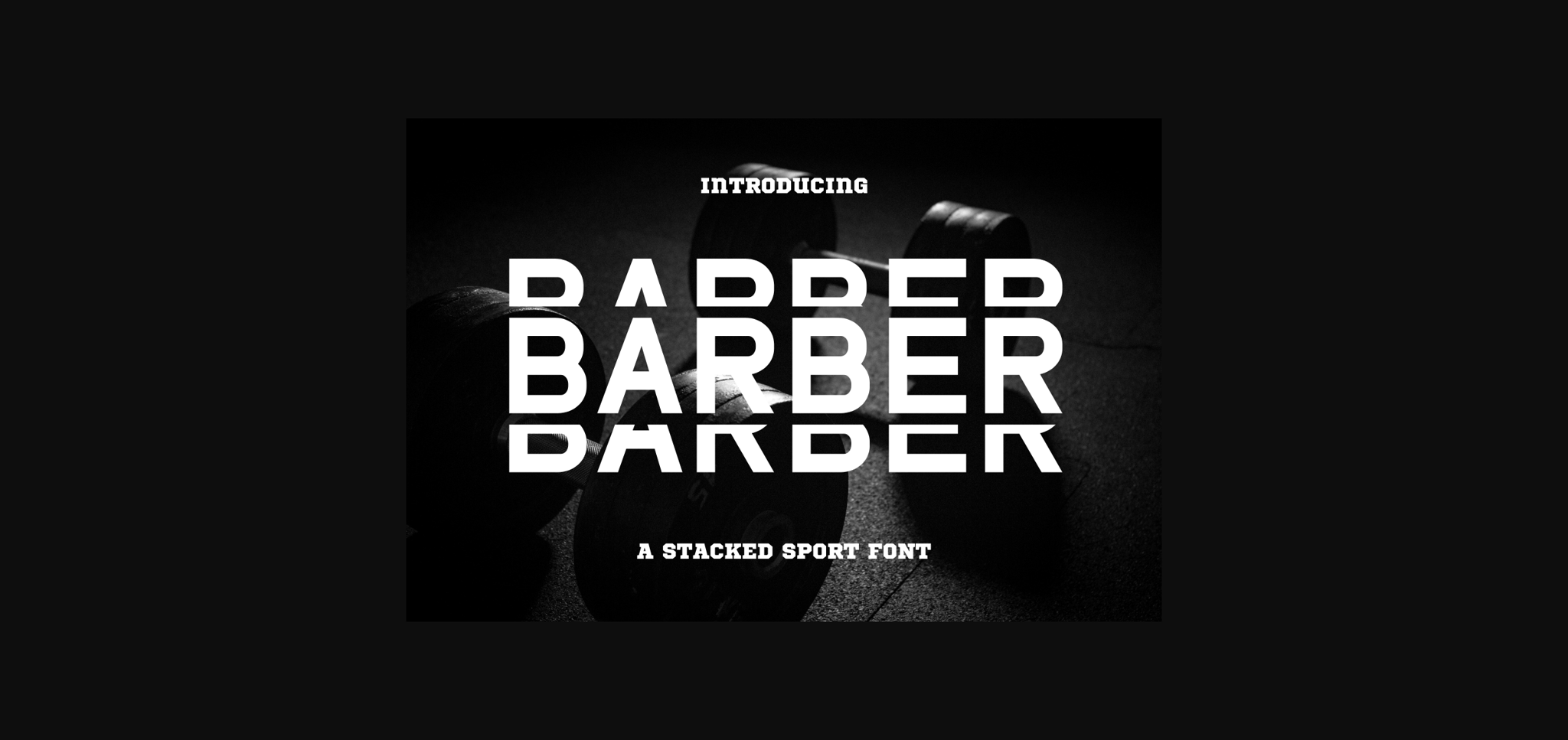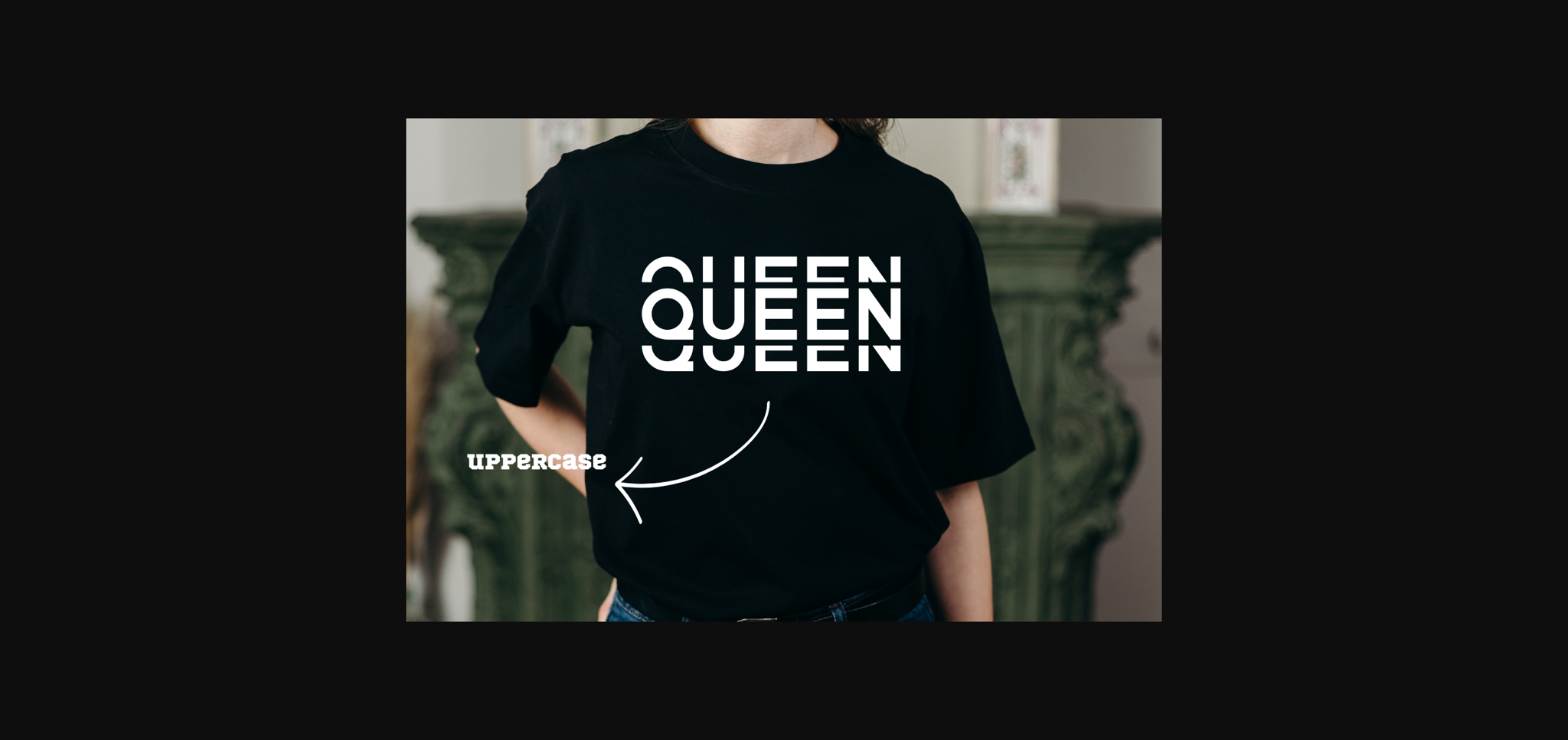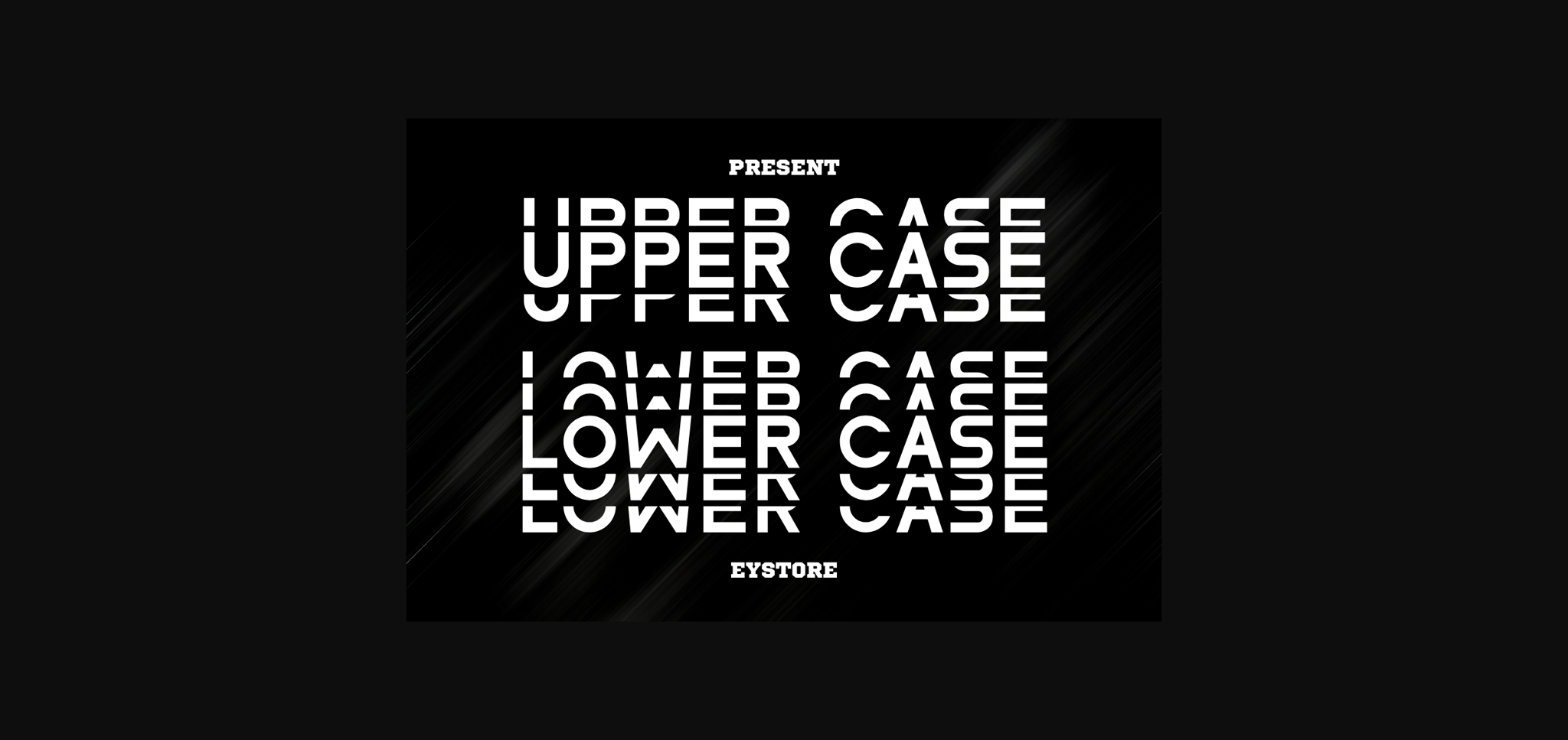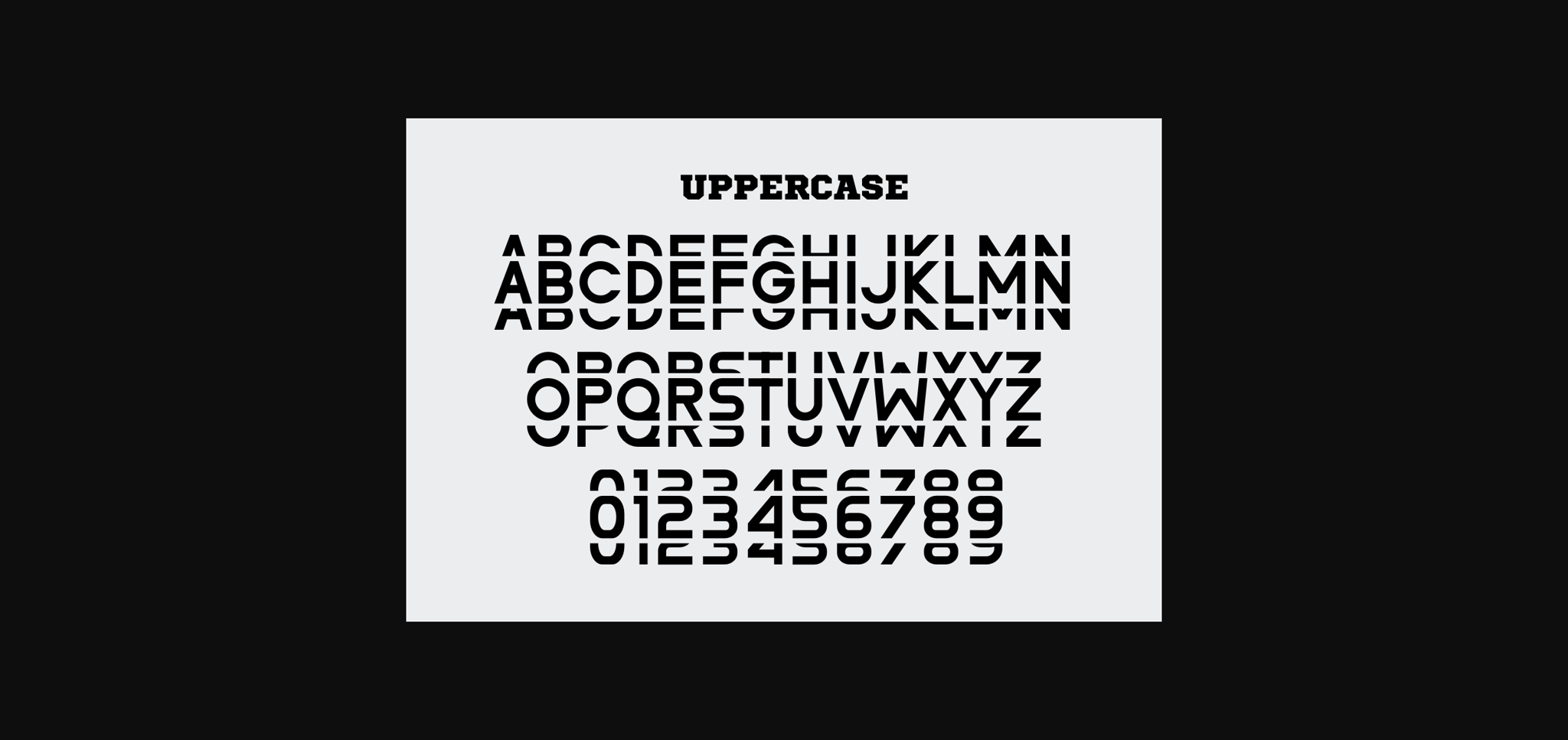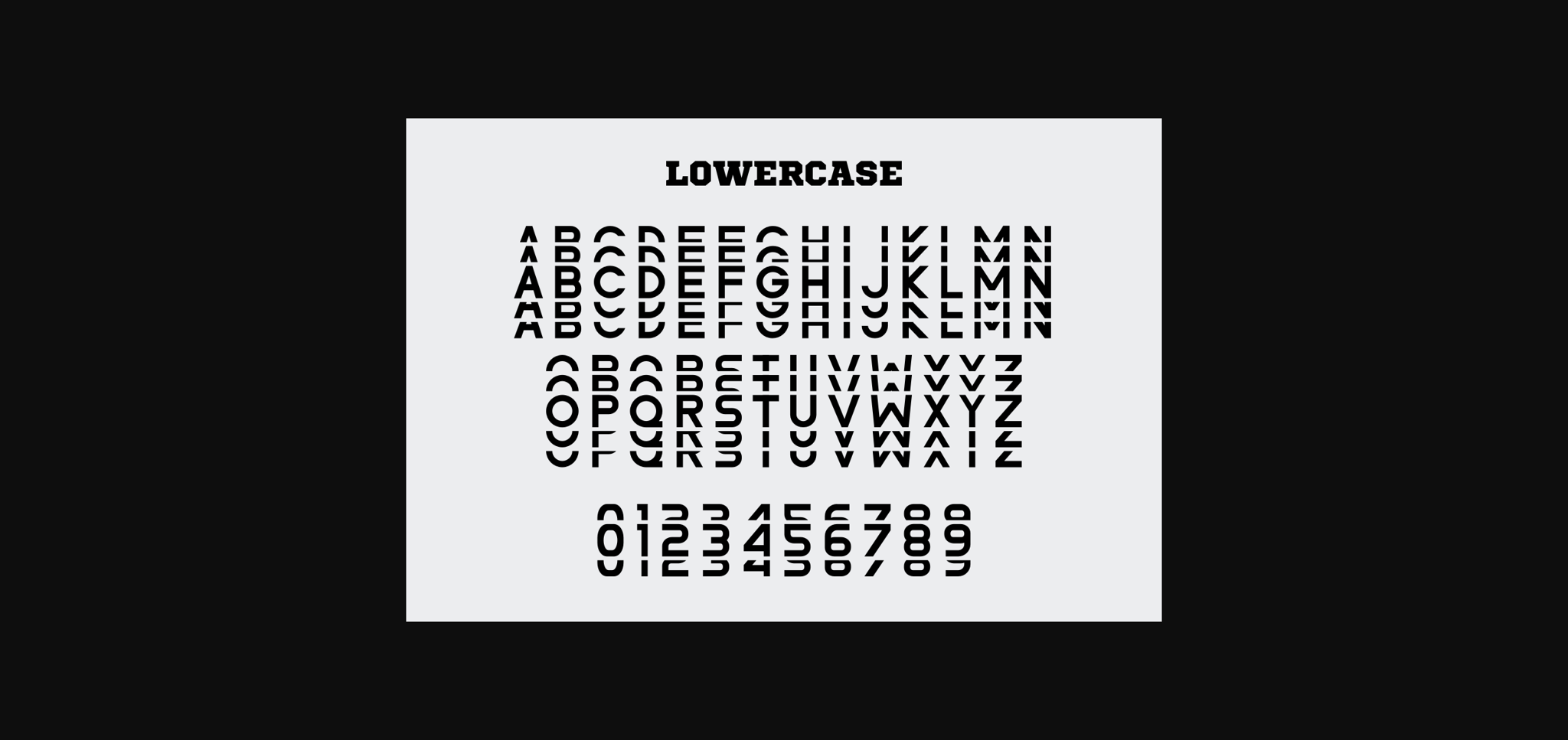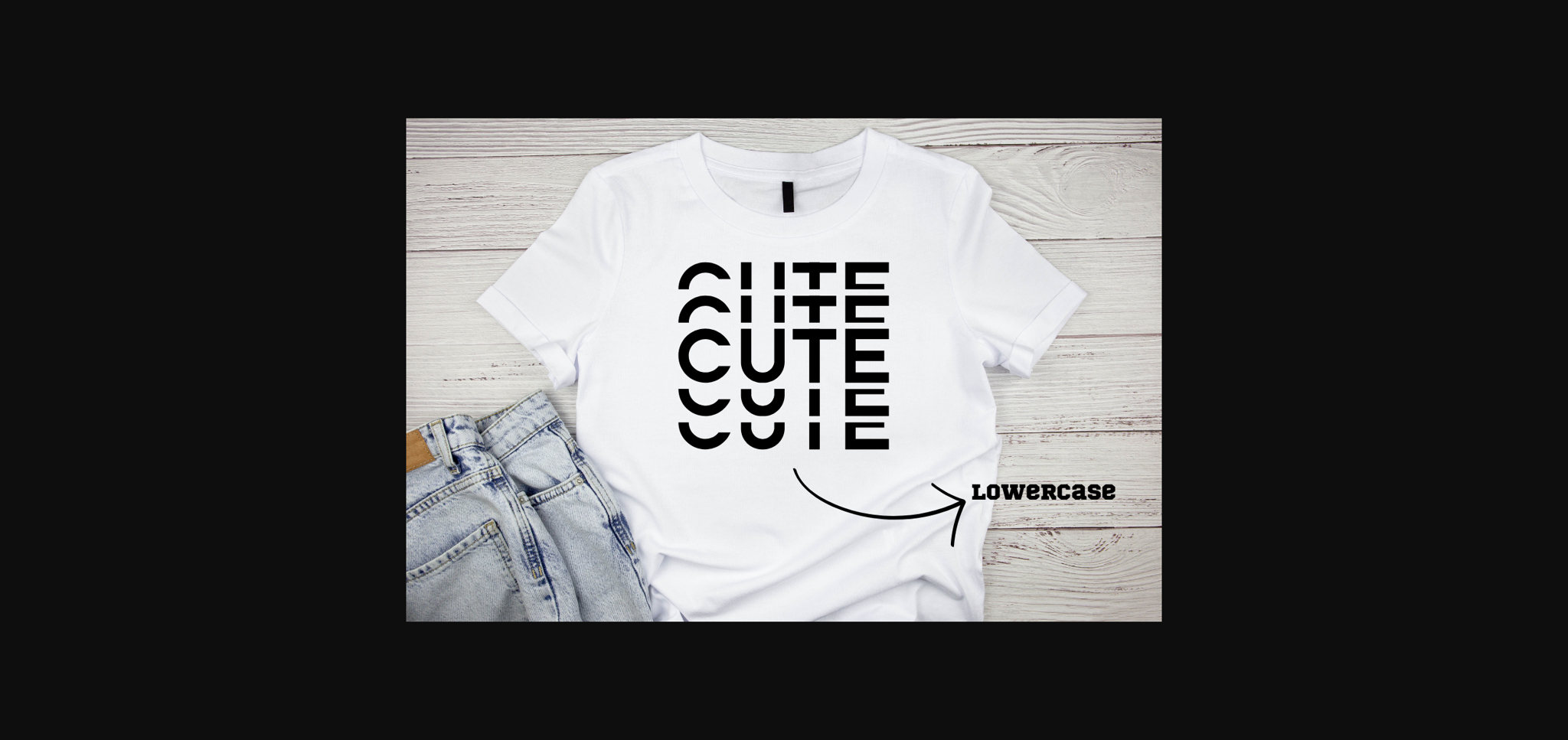
Barber Font
About Barber Font
Barber is a stacked sports style sans serif Font. It looks strong and was created to add a bright touch to your sports inspired designs. Great for sports designs, teams, jerseys, leagues, films, documentaries, films, logos, posters, games, book covers, headlines, titles and many other projects.